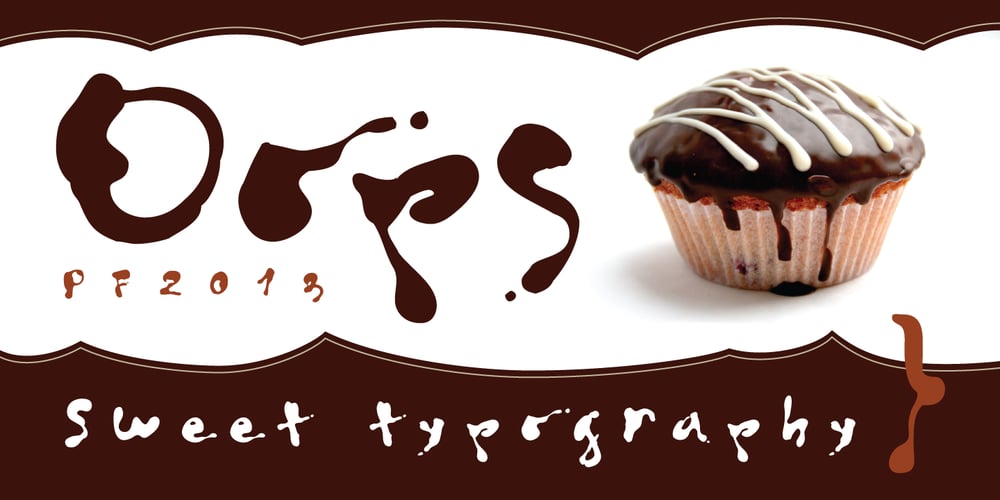
Oops
Oops font
Oops Font Family was designed by Lazar Dimitrijević and published by Posterizer KG. Oops contains 1 styles and family package options. The initial idea for the Oops font, was to create graphemes, and by using them it could imitate a mark of a spilled liquid-stain. In an attempt to make the most convincing effect, those graphemes were written on glass. The final appearance of the graphemes, mostly remain in their basic form, and have the characteristic of a liquid, like fluidity in motion. This manuscript is expressive, but that does not affect the readability of the letters. The generated font was created by using Photoshop, Illustrator and a little bit of interventions in Font Lab. Font Oops is updated and edited version of an old version of the Art decor font, which had just basic letters. Today, Oops font contains Latin and Cyrillic letters, and it can be ideal for use in subjects like a paintball, art, expression, ink, water…